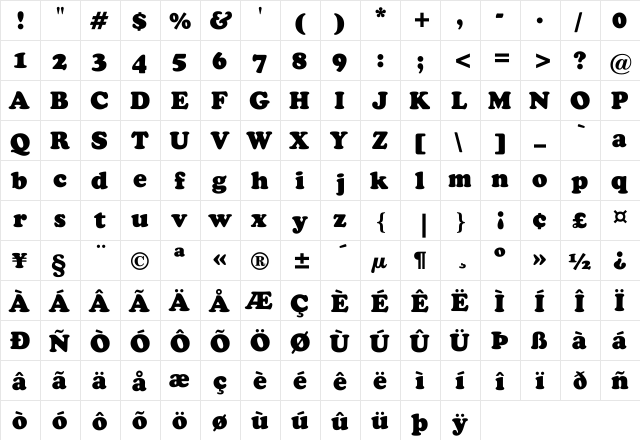
CooperBT-Black Regular
Design Context for CooperBT-Black Typeface
CooperBT-Black offers clean, dependable letterforms without strong stylistic allegiance, making it a practical choice for designers who need flexibility.